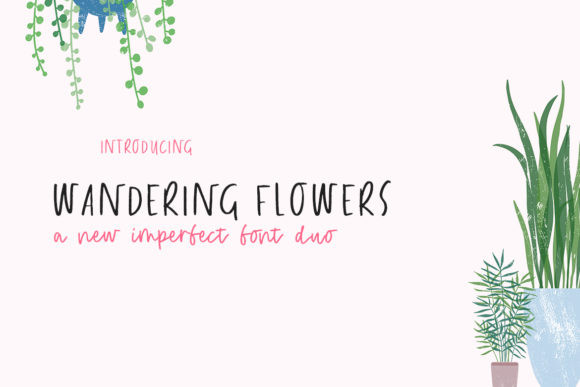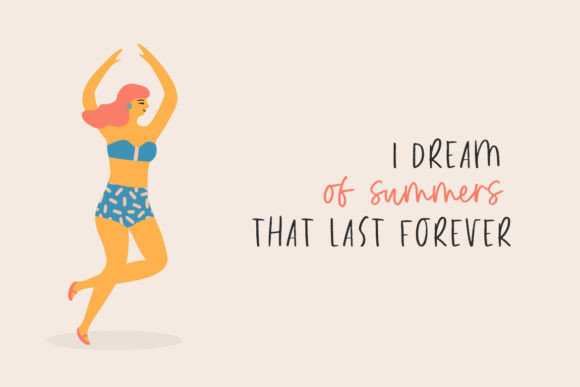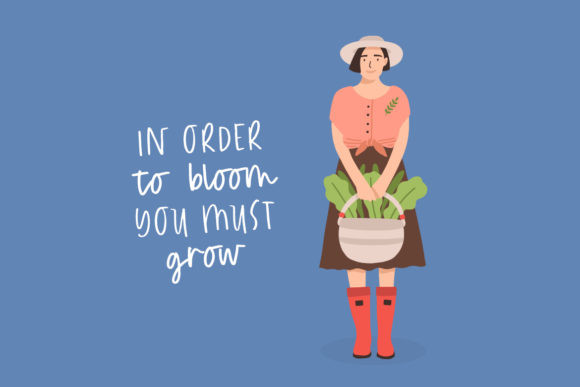
Wandering Flowers Font
Wandering Flowers is a spectacular duo font (display and script). Incredibly versatile, this font fits a wide pool of designs, elevating them to the highest levels. Add this font to your favorite creative ideas and notice how it makes them come alive!